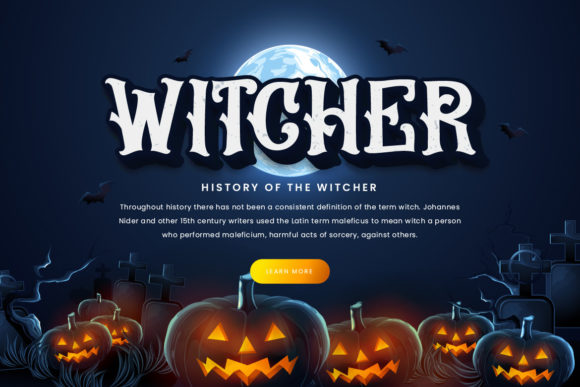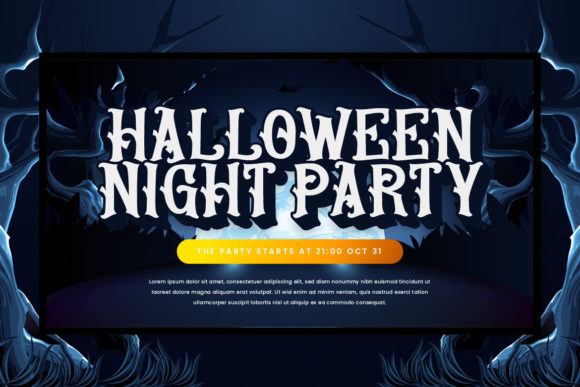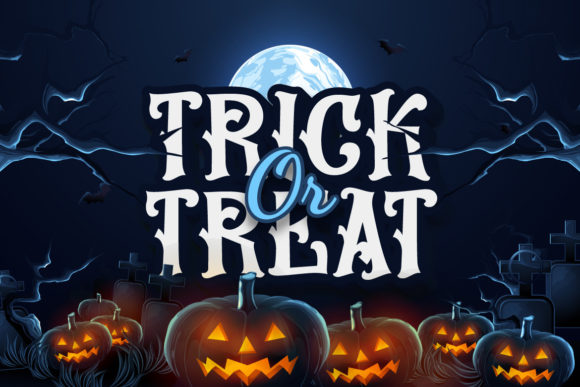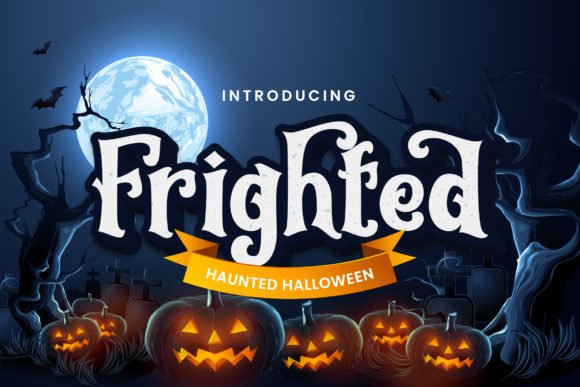
Introduction to Frighted Font
Frighted is a bold and spooky display font.
Add it to your Halloween crafts, horror movie posters, t-shirts and anything else that requires a spectacular look .
Frighted Font offers exceptional quality and versatility, making it a valuable addition to your design toolkit. Whether you’re creating for personal projects or commercial use, Frighted Font delivers professional results.